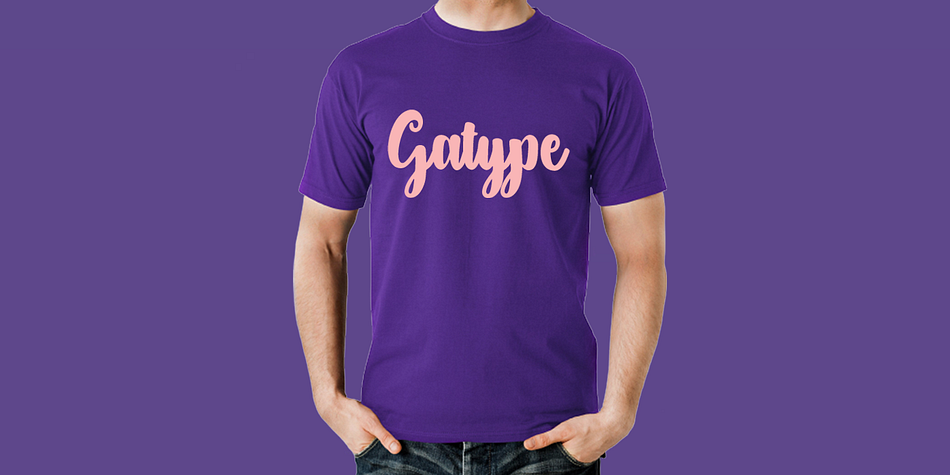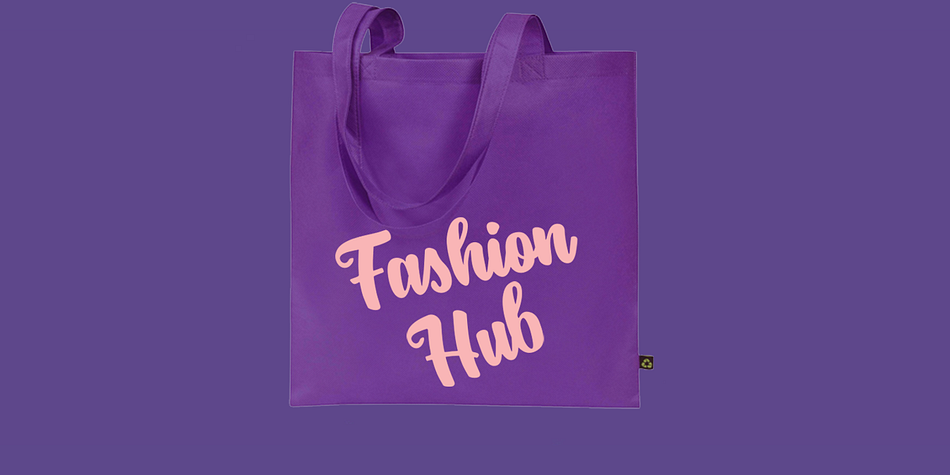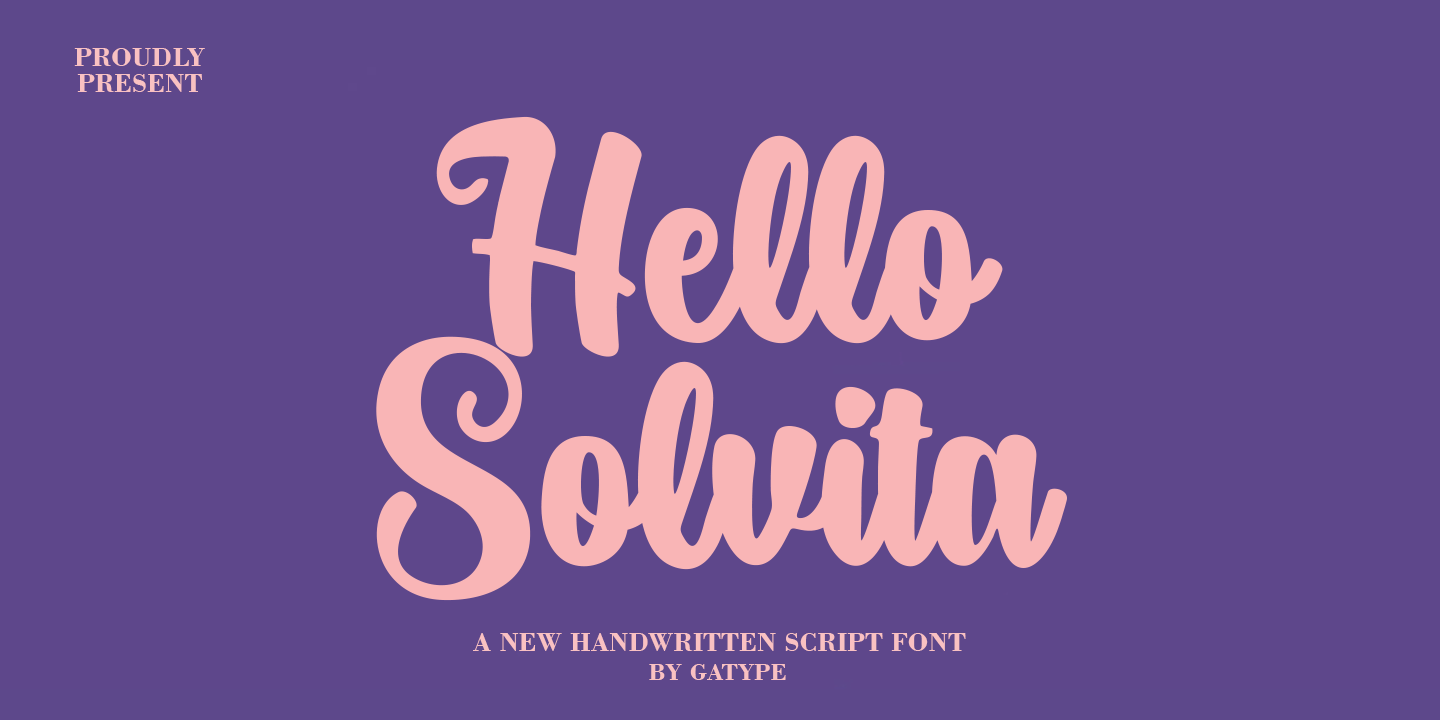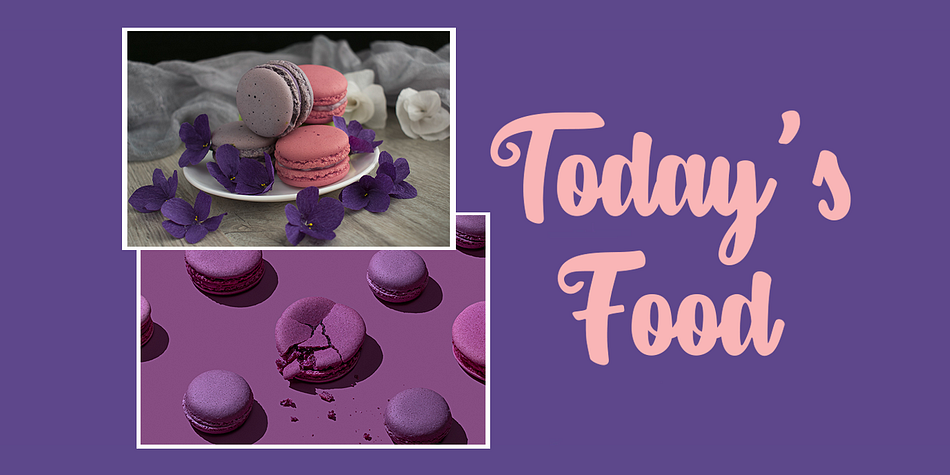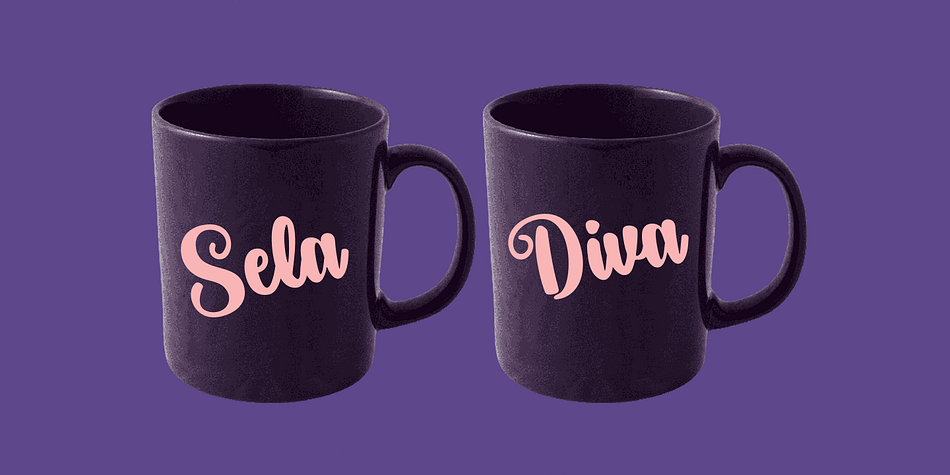
Hello Solvita
Hello Solvita is a brush script font family published by Gatype.
Hello Solvita is a fancy retro script font. With bold high-contrast strokes, a playful character with a bit of binder and an alternative style.To give you extra creative work. Hello Solvita This font is great for logo designs, social media, Movie Titles, Book Titles, short text even long text fonts and great for your secondary text fonts with sans or serif. Create stunning masterpieces with the Hello Solvita font. Hello Solvita features OpenType style alternatives, International binders and support for most Western Languages included. To enable the OpenType Stylistic alternative, you need a program that supports OpenType features such as Adobe Illustrator CS, Adobe Indesign & CorelDraw X6-X7, Microsoft Word 2010 or later.